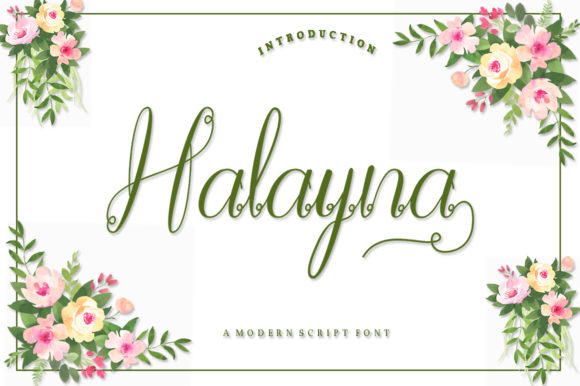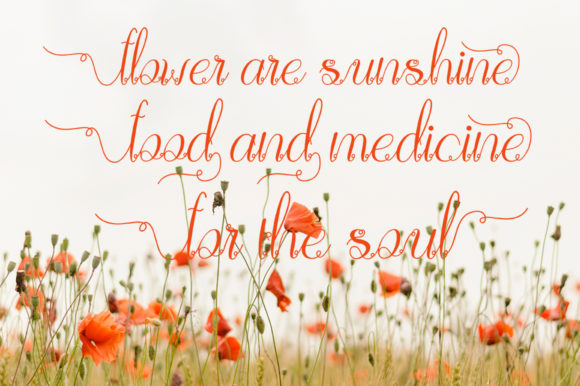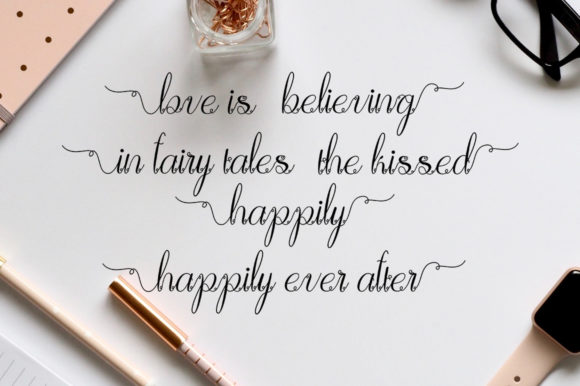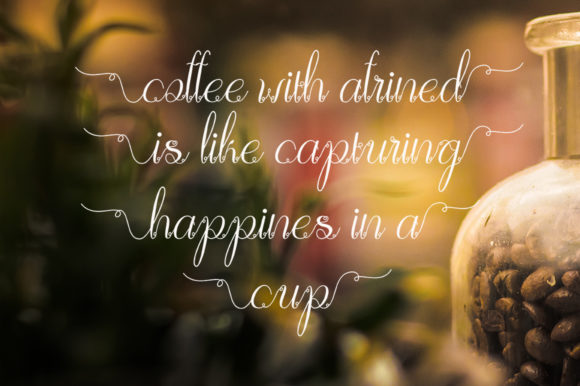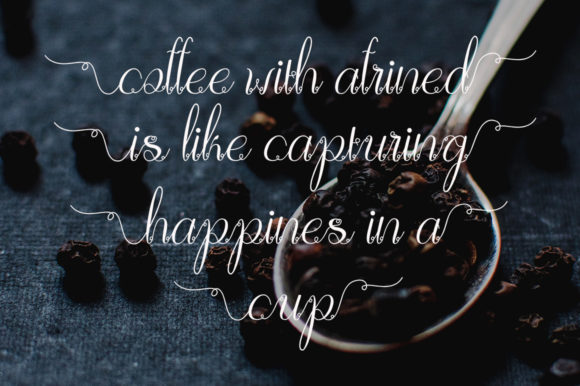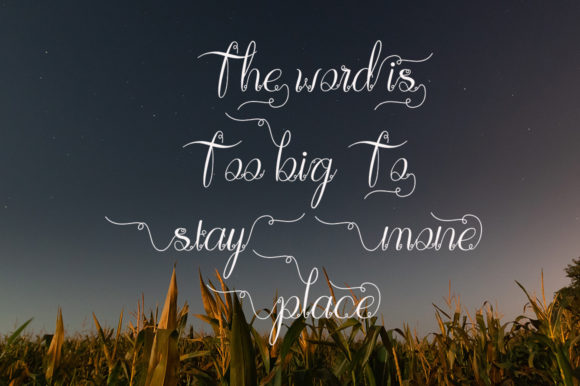
Halayna Font
About Halayna Font
The Halanya is a modern typeface with a tasty flow. It should make your designs instantly professional and jaw-dropping! Be a perfect professional in a minute and start creating modern designs like ads, sales, logos, branding, posters, social media text overlays today!